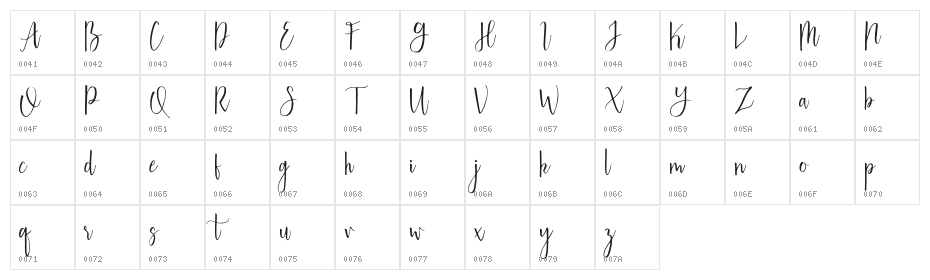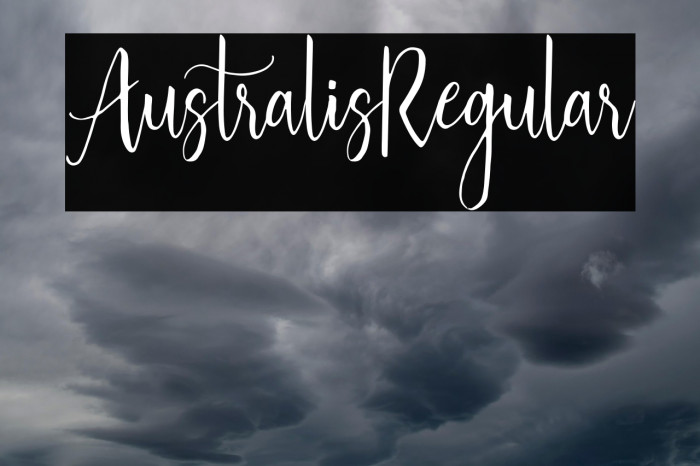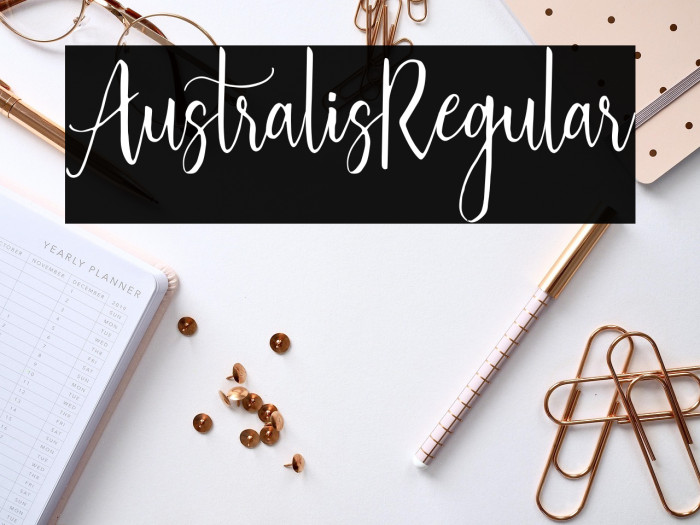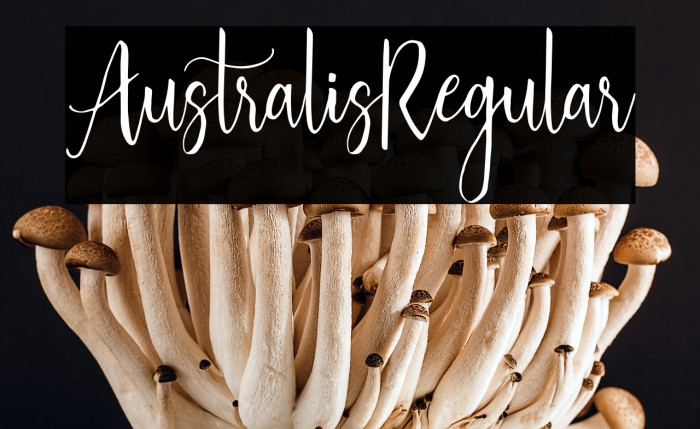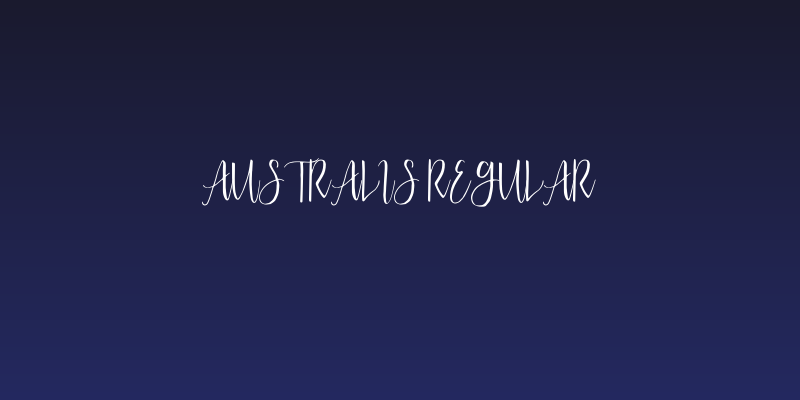
Australis-Regular Font
Australis-Regular Description
This font features an elegant and flowing script style, characterized by its smooth, cursive letterforms that exude a sense of sophistication and grace. The uppercase letters are tall and slightly exaggerated, with sweeping curves and loops that add a decorative flair. The lowercase letters maintain a consistent flow, with connected strokes that mimic the fluidity of handwriting. The overall appearance is both stylish and legible, making it suitable for a variety of design applications. The font's playful yet refined nature makes it ideal for projects that require a touch of elegance and personality.
| Overall Style | Elegant, Decorative |
| Proposed Projects | Ideal for wedding invitations, greeting cards, branding, and elegant packaging. |